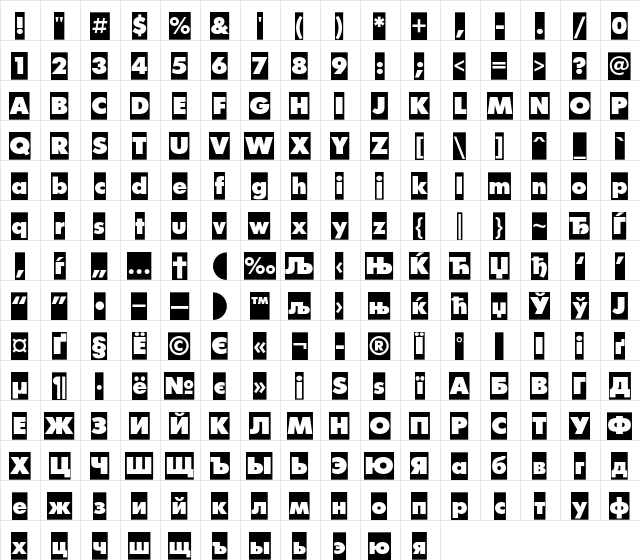
FuturaFuturisXCameoC Regular Font Preview
FuturaFuturisXCameoC Regular
Design Context for FuturaFuturisXCameoC Typeface
FuturaFuturisXCameoC has a distinctly futuristic character, with geometric precision and clean angles that feel at home in technology, gaming, and sci-fi contexts.